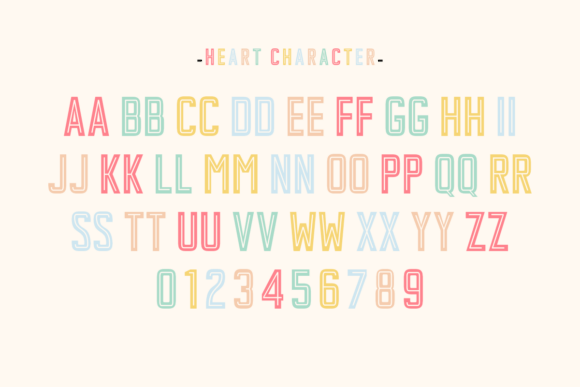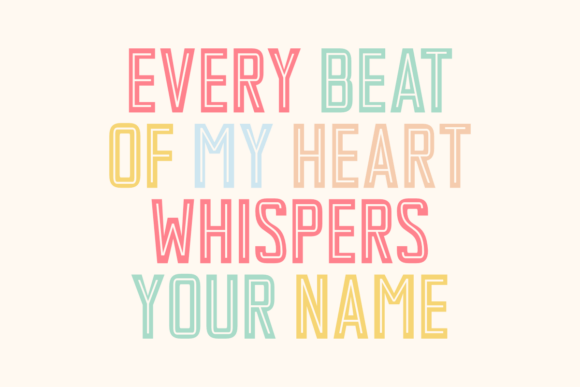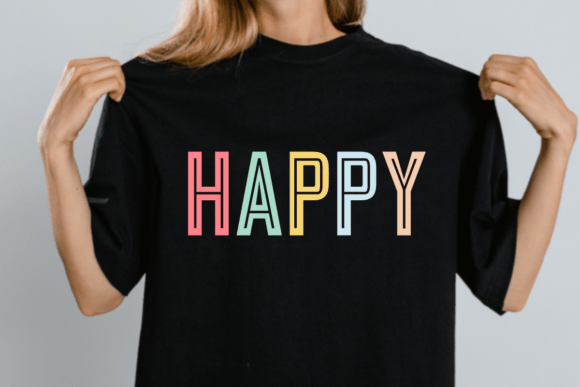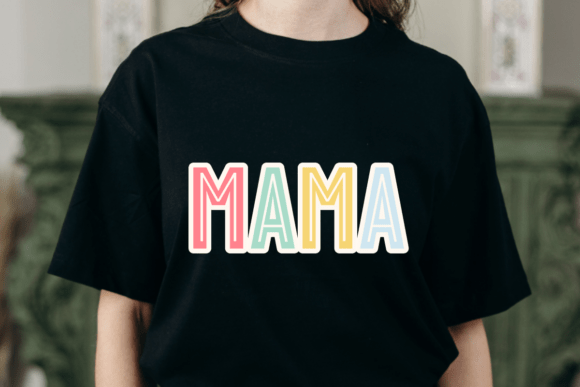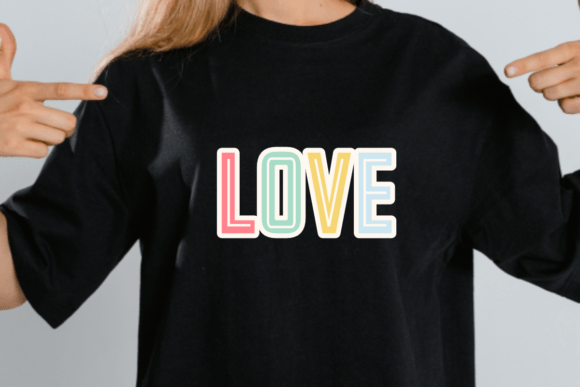
Introducing Heart Font: The Ultimate Decorative Display Font for Summer Designs
Are you ready to add a touch of sunshine to your summer creations? Look no further than Heart Font, the perfect decorative display font for all things bright, bold, and beachy! With its playful pastel palette and retro charm, Heart brings a sunny vibe to your designs that’s sure to capture the joy and energy of the summer season.
The Perfect Font for Summer Designs
Heart Font is specifically designed to evoke the feeling of a tropical vacation. Its bold and playful design makes it perfect for a variety of summer-themed projects, including tropical vacation tees, beach party invitations, fruity drink tumblers, pool day tote bags, and more. Whether you’re crafting with Cricut, designing sublimation prints, or making standout POD products on Etsy, Heart Font is the ideal choice for adding a warm-weather flair to your designs.
Key Features of Heart Font
- Playful Pastel Palette: Heart Font features a soft and soothing pastel color scheme that’s perfect for summer designs.
- Retro Charm: The font’s retro-inspired design adds a touch of nostalgia and playfulness to your creations.
- Bold and Beachy: Heart Font is perfect for making a statement with your summer designs, from bold and bright to soft and subtle.
- Versatile: Use Heart Font for a variety of projects, from t-shirts and tote bags to stickers and sublimation prints.
Ideal for Creative Entrepreneurs
Heart Font is perfect for creative entrepreneurs looking to capture the joy, color, and energy of the summer season. Whether you’re a crafter, designer, or online seller, this font is ideal for creating standout products that will appeal to customers looking for fun and unique summer-themed designs.
Project Ideas with Heart Font
- Sunset Quote Designs: Create stunning sunset-inspired quotes with Heart Font and add a touch of warmth to your designs.
- Tropical Sticker Bundles: Use Heart Font to create colorful and fun tropical stickers perfect for summer crafts and projects.
- Beach Party Invitations: Make a splash with your beach party invitations featuring Heart Font and its playful pastel palette.
- Fruity Drink Tumblers: Add a touch of summer fun to your drink tumblers with Heart Font and its bold and beachy design.
Tips for Using Heart Font
- Experiment with Colors: Try out different pastel colors and combinations to create unique and eye-catching designs.
- Mix and Match: Pair Heart Font with other fonts and graphics to create interesting and dynamic designs.
- Keep it Simple: Don’t be afraid to keep your design simple and let Heart Font be the star of the show.
Heart Font is the perfect decorative display font for adding a touch of summer sunshine to your designs. With its playful pastel palette, retro charm, and bold and beachy design, it’s ideal for a variety of summer-themed projects. Whether you’re a creative entrepreneur, crafter, or designer, Heart Font is sure to become your new go-to font for all things bright, bold, and beachy!